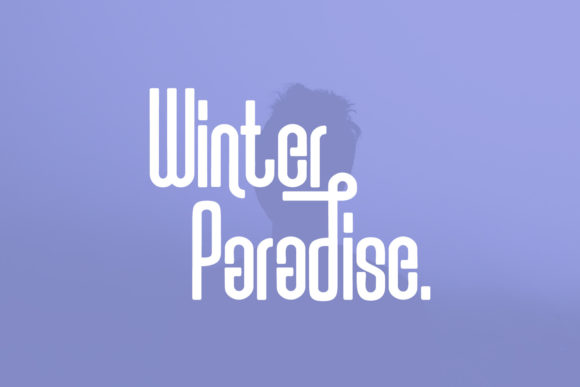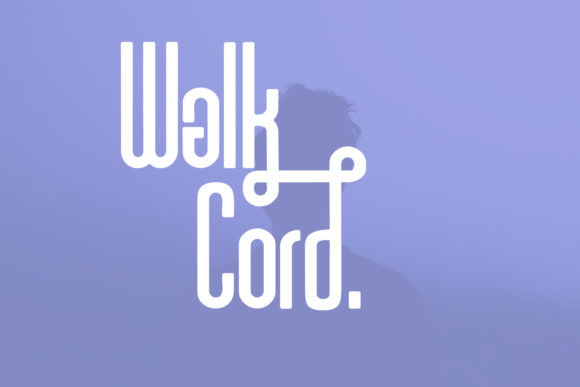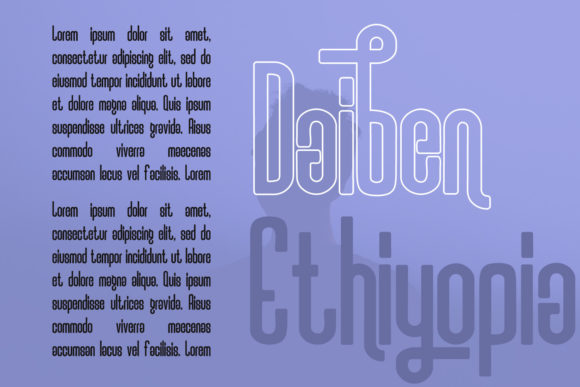
Introduction to Nilkon Font
Have you ever been in the midst of a creative project, staring at a blank screen, desperately searching for the perfect font to bring your vision to life? It’s that moment of frustration and excitement when you stumble upon something truly unique, like the Nilkon Font. This cool, modern, and distinct display font is the perfect solution for designers looking to add a touch of elegance and sophistication to their work.
With its sleek lines and clean design, Nilkon Font is ideal for web designs, business cards, and any other creative project that requires a high-quality, free download. Its transparent background makes it easy to overlay on any image or design element, allowing for endless possibilities and customization options.
About Nilkon Font
Key Features of Nilkon Font
- High-quality design resource with a unique, modern aesthetic suitable for creative projects.
- Features a transparent background, allowing for easy customization and integration into designs.
- Includes multiple font weights and styles, providing designers with flexibility and creative options.
- Designed with high resolution (up to 300 DPI) for crisp, clear display in print and digital applications.
- Perfect for use in logos, branding materials, and other design elements where a clean, modern look is desired.
Honest Review: Nilkon Font
I recently had the chance to work with the Nilkon Font, and I must say it’s a great addition to any designer’s toolkit. This font is perfect for any creative project that requires a modern and sleek look.
- ✨ High quality: The Nilkon Font is incredibly detailed and smooth, making it perfect for use in digital designs.
- ✨ Transparent background: The font has a transparent background, allowing for seamless integration with any background image or color.
While the Nilkon Font is an excellent resource for designers, there are a few limitations to consider.
- ⚠️ Limited font styles: The font only comes in a few different styles, which may not be enough for designers who need a wider range of options.
- ⚠️ Not suitable for print: Due to its digital origins, the Nilkon Font may not be the best choice for print projects where high-quality resolution is crucial.
Overall, I’m really impressed with the Nilkon Font. It’s a great resource for designers who need a high-quality, modern font for their creative projects. While it may have some limitations, it’s definitely worth checking out for your next design project.
Nilkon Font is perfect for creating eye-catching titles, headings, and body text. It’s also great for designing social media graphics, presentations, and marketing materials. To get the most out of Nilkon Font, experiment with different font sizes, colors, and styles to create a unique and visually appealing design.
Alternatives to Nilkon Font
Open Sans is a high-quality, free-to-download sans-serif font ideal for designers working on creative projects that require a clean and modern aesthetic. Its versatility makes it suitable for a wide range of design applications, including digital interfaces and print materials. When to use: For projects requiring a simple, elegant, and highly legible font.
Open Sans compares to Nilkon Font by offering a more neutral and straightforward appearance, lacking the subtle nuances that make Nilkon Font unique. However, its simplicity makes it an excellent choice for designers who prioritize readability and ease of use.
Lato is a high-quality, free-to-download sans-serif font that excels in creating a sophisticated and modern design atmosphere. Its elegant lines and subtle nuances make it suitable for creative projects requiring a touch of sophistication. When to use: For projects demanding a stylish and refined aesthetic.